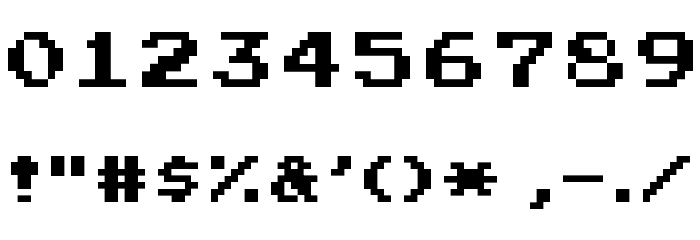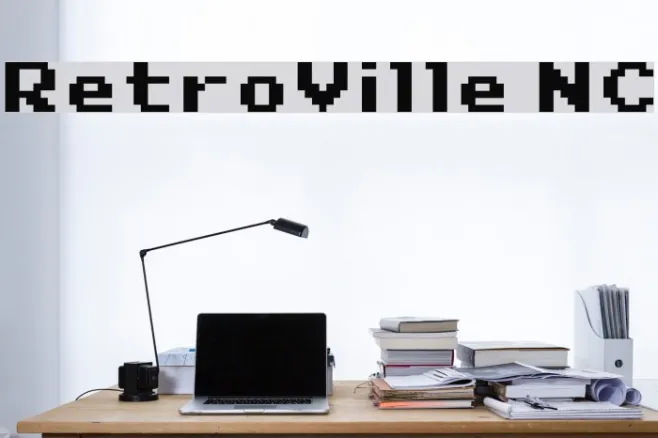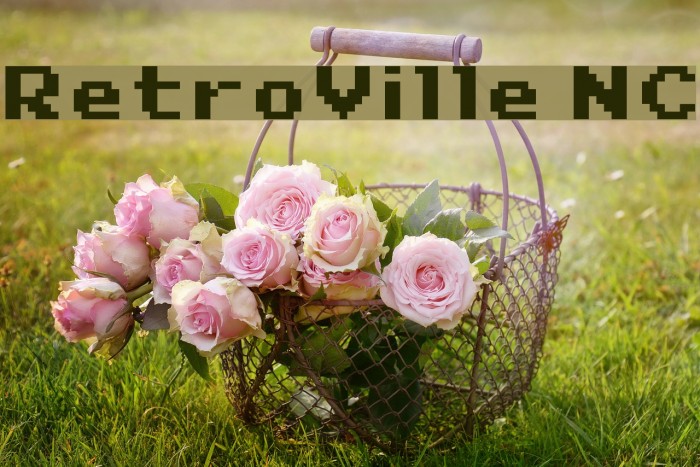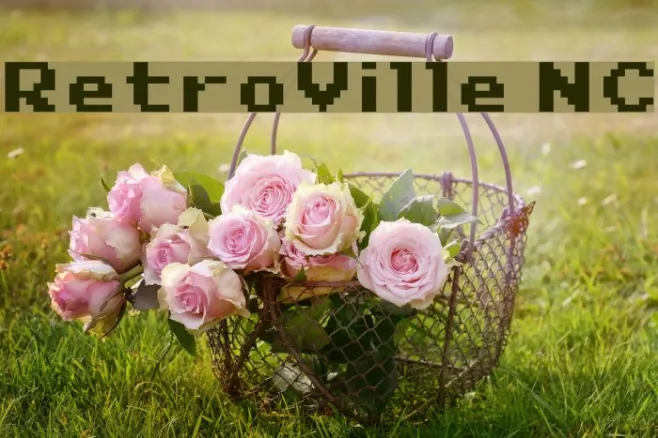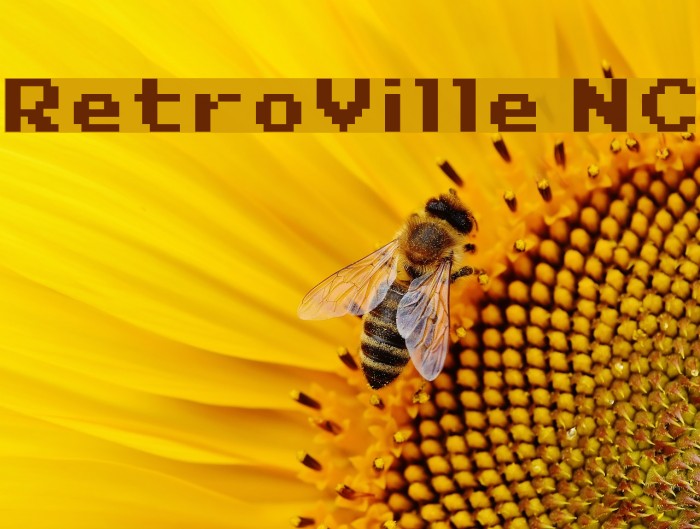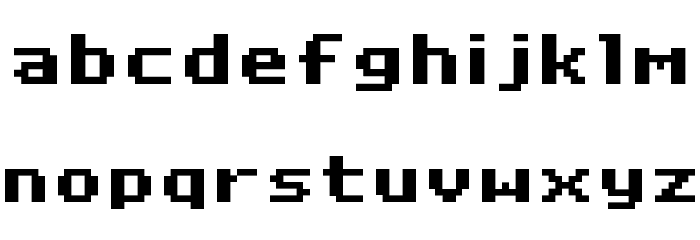
RetroVille NC Font
This font features a distinct pixelated style reminiscent of early digital and arcade aesthetics. Each character is composed of blocky, square shapes that give it a retro, nostalgic feel. The uppercase and lowercase letters maintain a consistent height, contributing to a uniform appearance. Numbers and special characters follow the same pixelated design, ensuring a cohesive look across all glyphs. The font's simplicity and geometric nature make it highly legible, even at smaller sizes, while its unique style adds a playful, vintage touch to any design.
A pixelated, retro-style font with a blocky, geometric design.
• Proposed Projects: Ideal for video game graphics, retro-themed posters, digital art projects, and any design requiring a nostalgic touch.